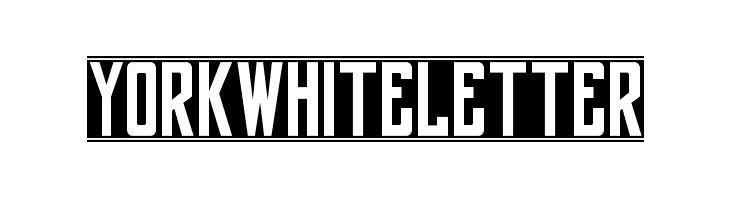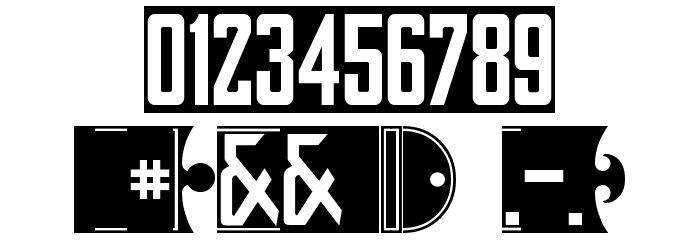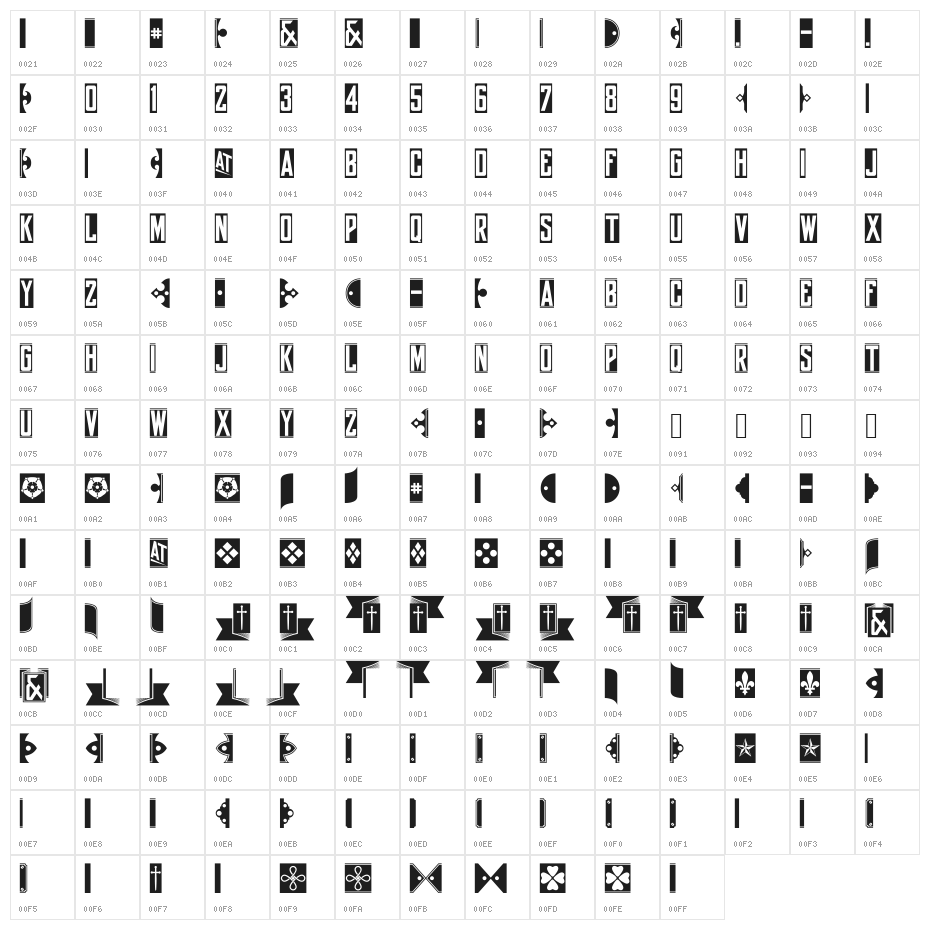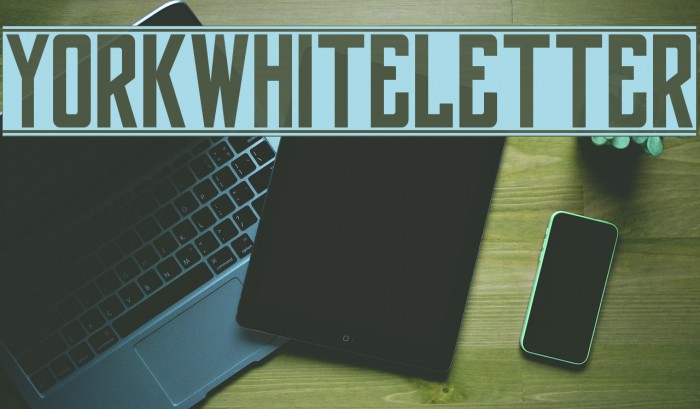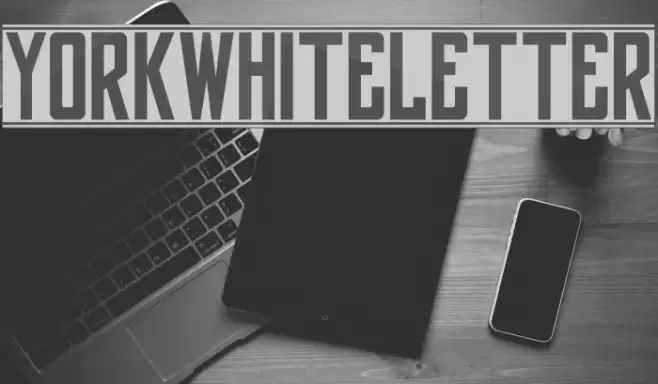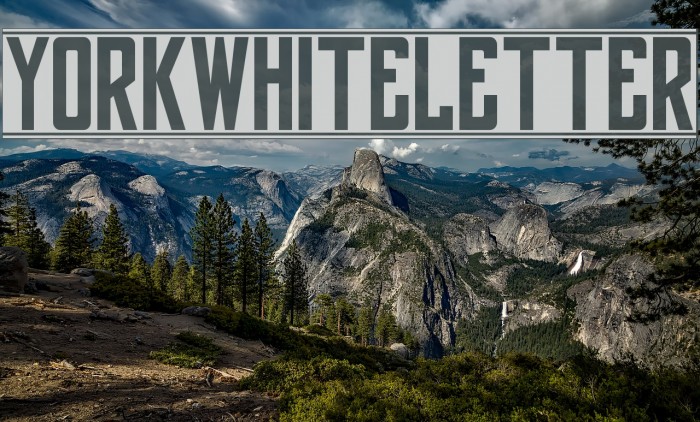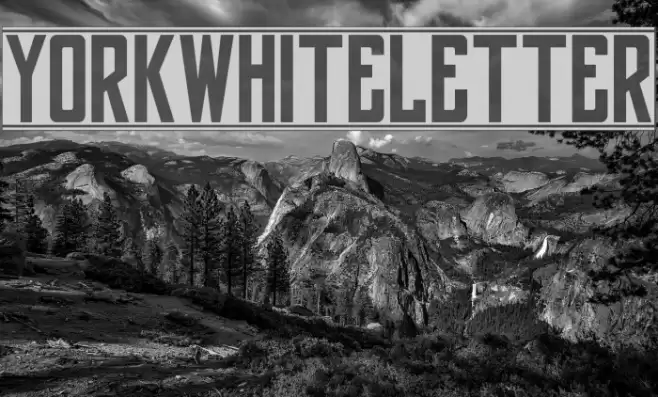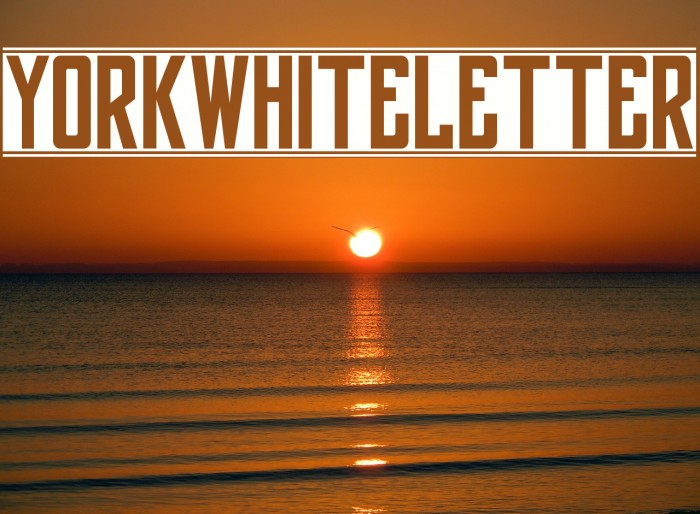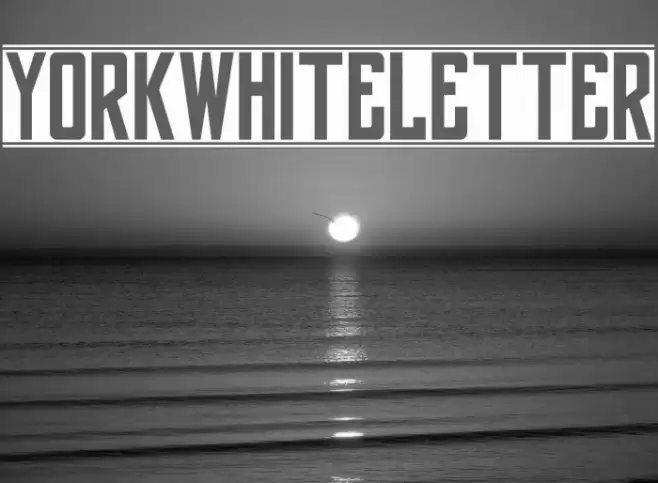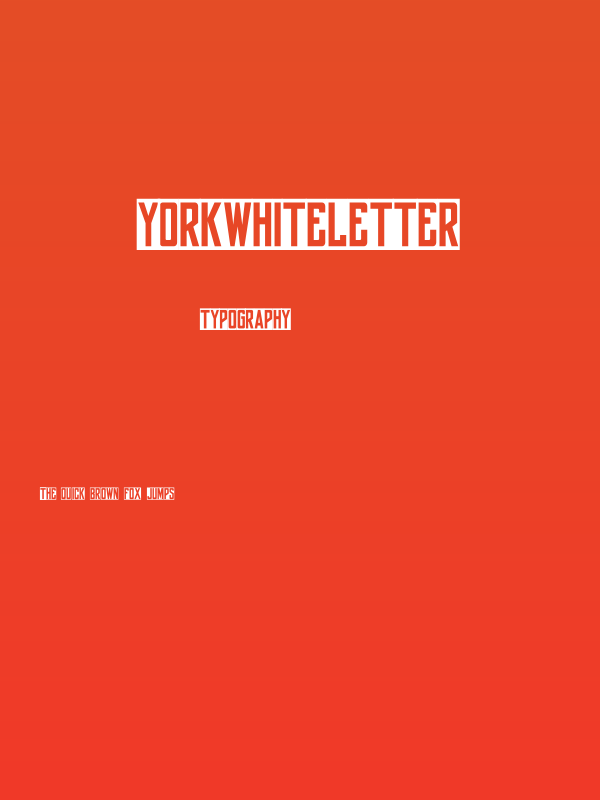
yorkwhiteletter Font
yorkwhiteletter Description
This font features a bold, blocky design with strong geometric shapes and a high level of contrast between the thick vertical lines and thinner horizontal lines. The characters are all uppercase, with a uniform height and width, creating a cohesive and structured appearance. The style is reminiscent of vintage signage, with a modern twist that makes it suitable for contemporary design projects. The numbers and special characters maintain the same bold and structured aesthetic, ensuring consistency across all elements. The font's distinct style makes it ideal for creating impactful headlines and eye-catching logos.
| Overall Style | Vintage, Modern |
| Proposed Projects | Ideal for branding, poster design, signage, and any project requiring a strong visual impact. |